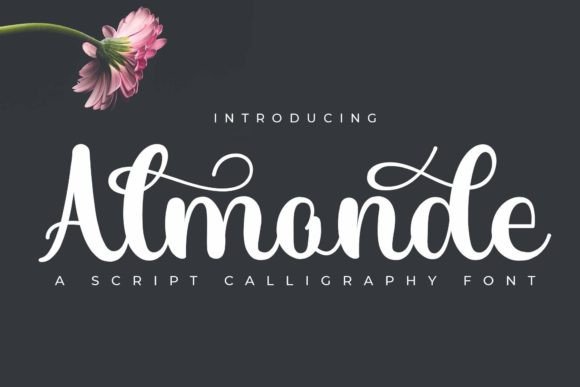
The Sweet Charm of Almonde Font: A Designer’s Delight
I still remember the time I was working on a wedding invitation project, and my client asked for a font that was both elegant and playful. I scoured the internet, trying out font after font, but nothing seemed to fit the bill. That was until I stumbled upon Almonde Font. Its romantic, calligraphic style and dancing characters instantly won me over. It was as if the font was made for that project! In this article, I’ll share my love for Almonde Font, its features, and how to make the most of it in your designs.
An Honest Review of Almonde Font
- ✨ Romantic and sweet calligraphy style that’s perfect for invitations, cards, and other design projects
- ✅ Casual yet elegant touch that adds a personal feel to your designs
- 🎨 Great for design artwork, from digital to print
While Almonde Font is a beautiful addition to any design project, there are a few things to keep in mind:
- ⚠️ As with any script font, it may not be suitable for very small font sizes or body text
- 🤔 Some users may find the font a bit too ornate for certain design projects
A Practical Guide to Using Almonde Font
The Backstory of Almonde Font
While the origins of Almonde Font are shrouded in mystery, it’s clear that the designer was inspired by traditional calligraphy and handwriting. The font’s romantic, dancing characters evoke a sense of whimsy and playfulness, making it perfect for designers who want to add a personal touch to their work.
Q: Is Almonde Font suitable for body text?
A: While Almonde Font is beautiful, it’s not ideal for body text due to its script nature and potential readability issues at small font sizes.